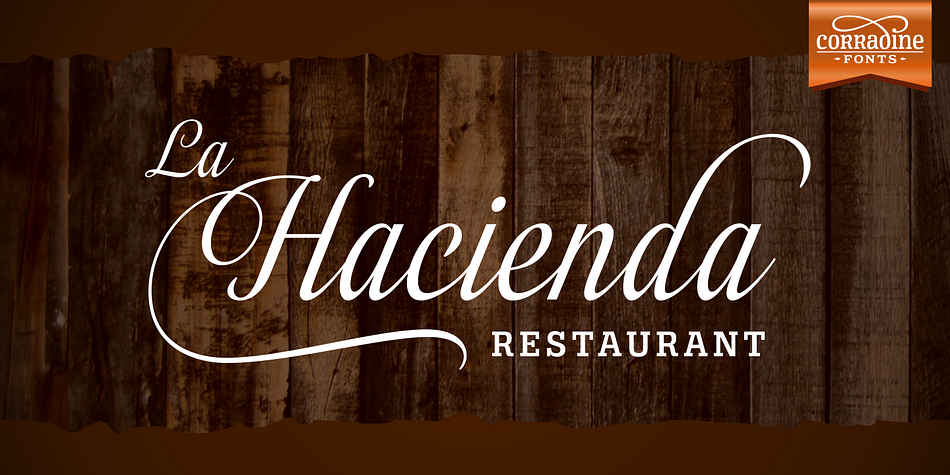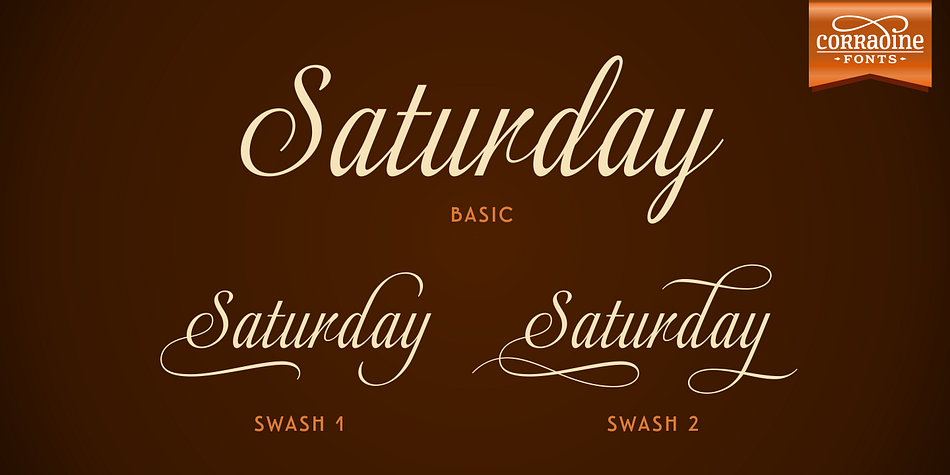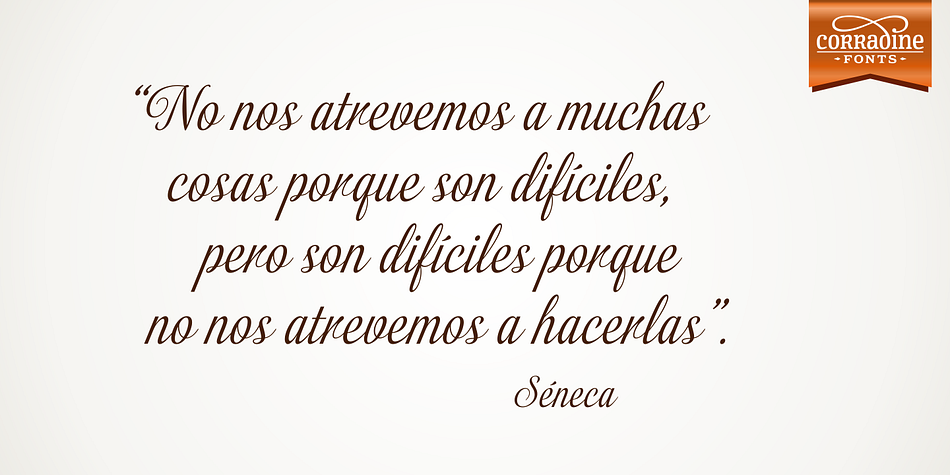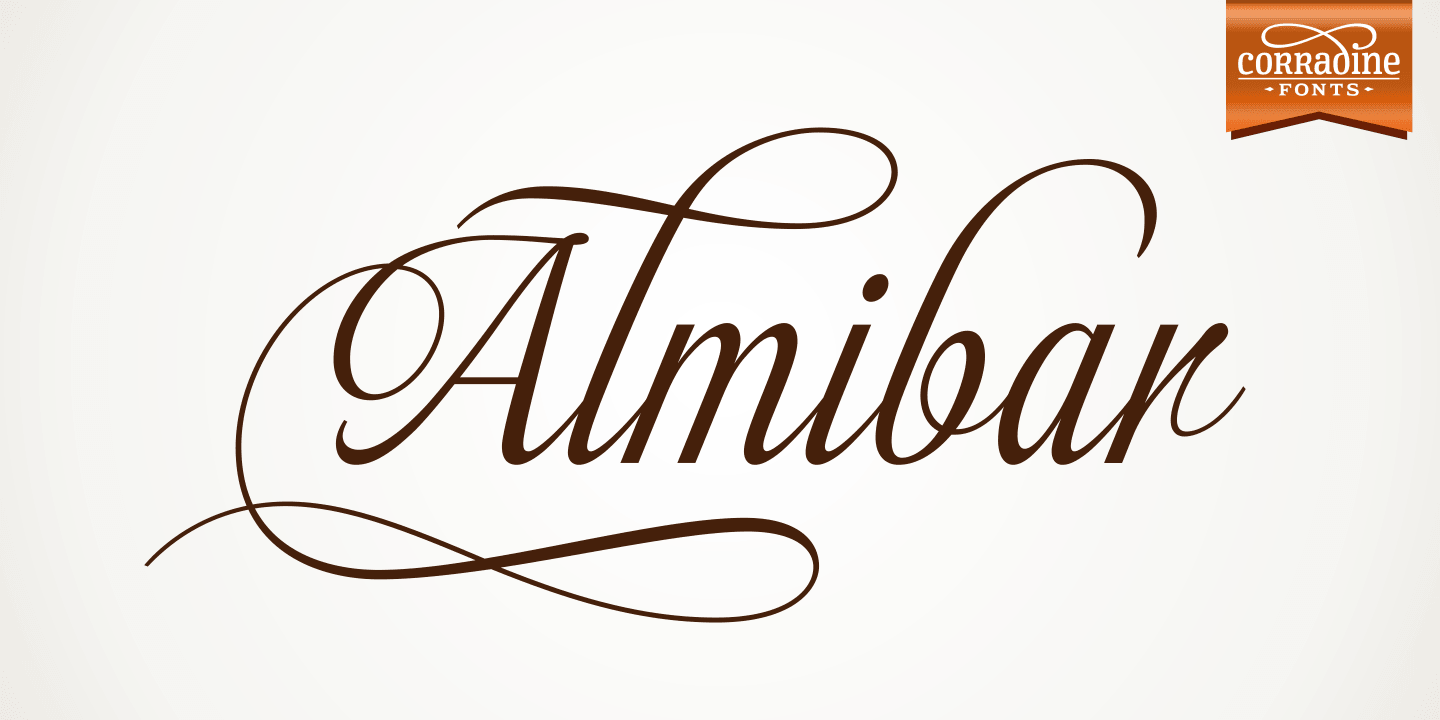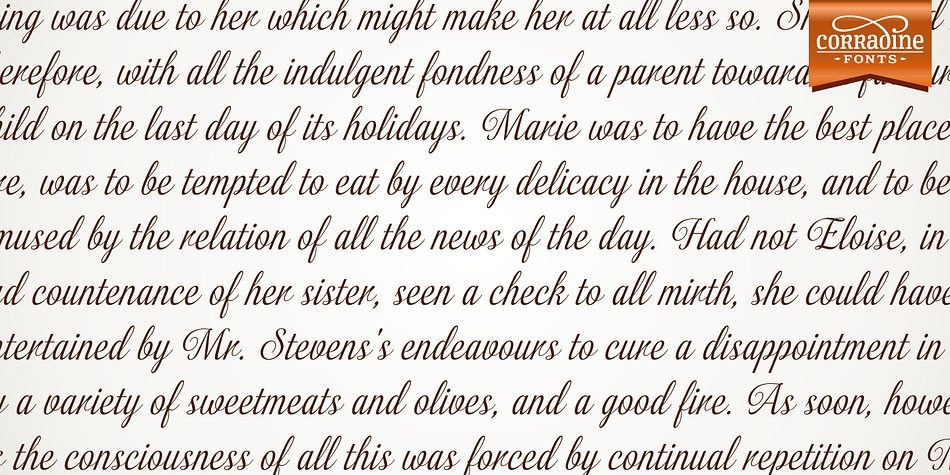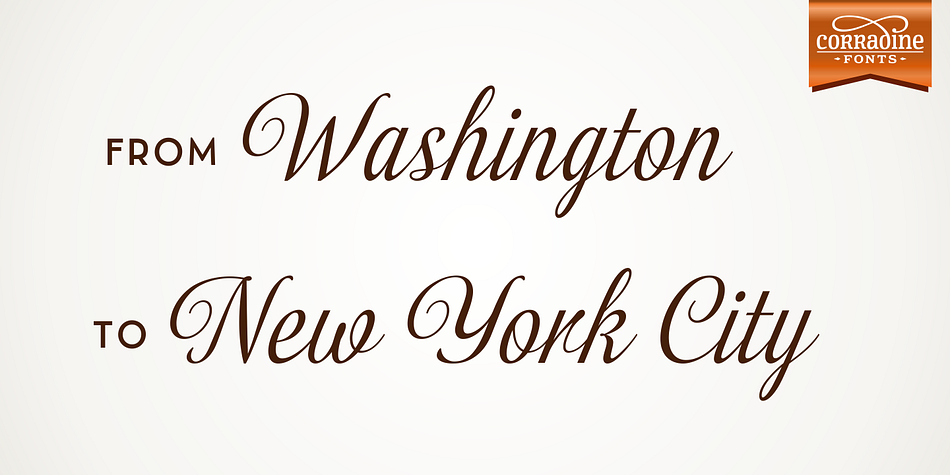
Almibar is a script font family. This typeface has three styles and was published by Corradine Fonts.
Almibar is a delicate and very elegant connected script font. Its classic style is perfect to be applied in any type of formal pieces.